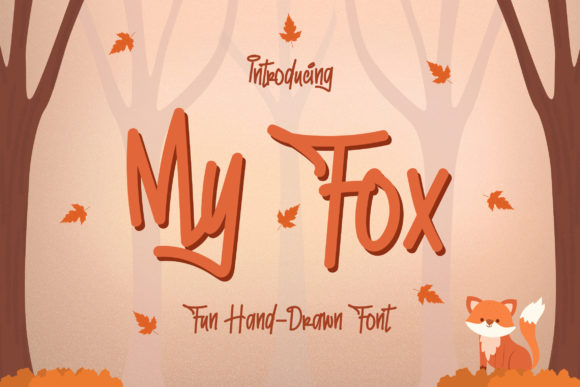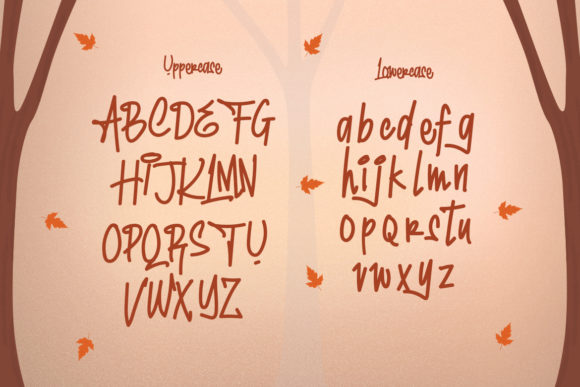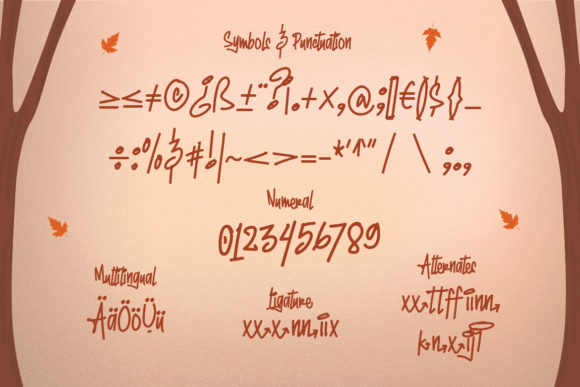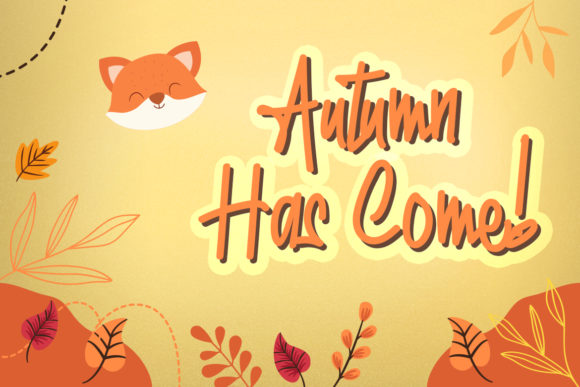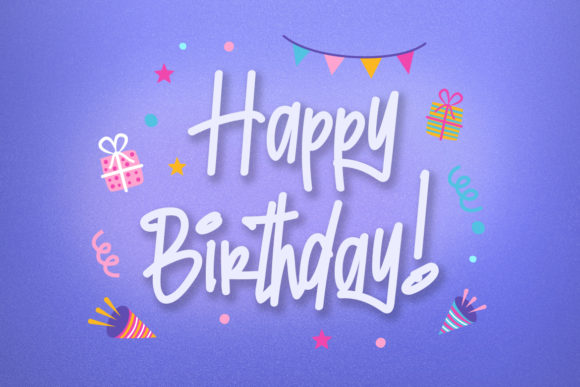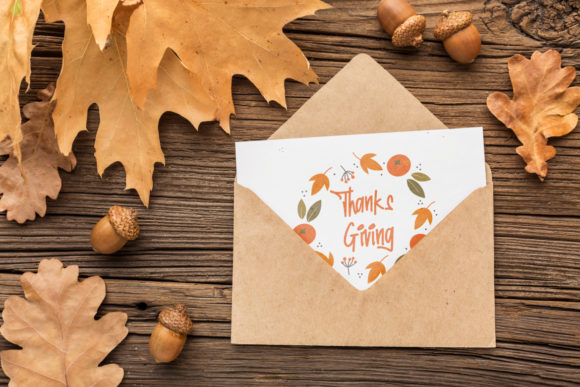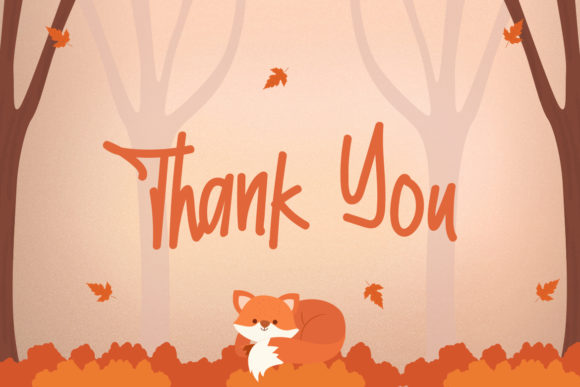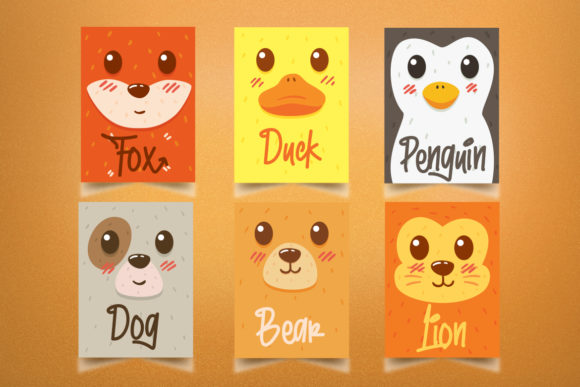
My Fox Font
About My Fox Font
My Fox is a delightful and charming handwritten font that exudes a playful and whimsical vibe. With its adorable and friendly appearance, this font adds a touch of fun and joy to any design project. Whether you’re creating birthday cards, designing clothing, crafting quotes, or designing posters, My Fox is the perfect choice to make your creations stand out.
The unique and lovable features of My Fox make it an ideal font for projects that require a touch of cuteness and personality. Each letter has been carefully crafted to showcase its playful nature, with lively strokes and cute details. The handwritten style adds an authentic and personal touch, making your designs feel warm and inviting.
From children’s birthday invitations to cute apparel designs, My Fox adds a delightful element to your creations. Its versatility allows it to be used for various purposes, such as headings, quotes, logos, and more. The font’s playful and fun-loving nature sparks imagination and captures the attention of viewers, leaving a lasting impression.
With My Fox, you have the freedom to explore your creativity and infuse your designs with a touch of whimsy. The font’s light-hearted and friendly vibe creates a positive and cheerful atmosphere, making it a great choice for projects that aim to evoke happiness and joy.
Whether you’re designing for print or digital media, My Fox stands out with its unique charm. Its adaptability and versatility make it suitable for a wide range of design projects, allowing you to add that extra touch of cuteness and playfulness.
In summary, My Fox is a fun and playful handwritten font that brings a sense of joy and whimsy to your designs. Its adorable feel and lovable details make it ideal for birthday cards, clothing, quotes, headings, posters, and more. Let My Fox be the star of your designs and create truly standout projects that capture the hearts of your audience.